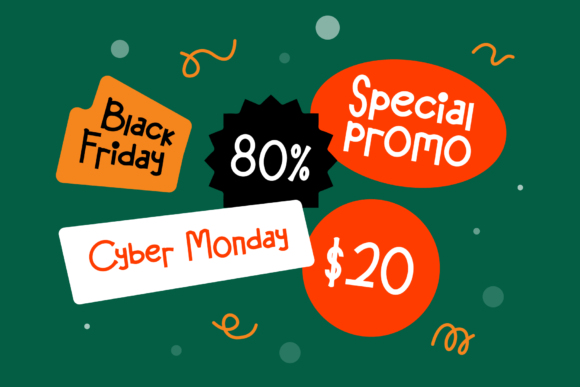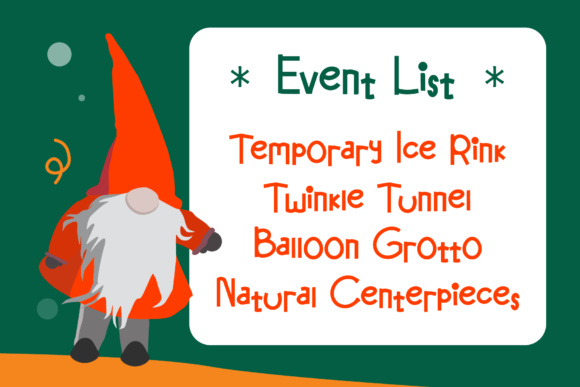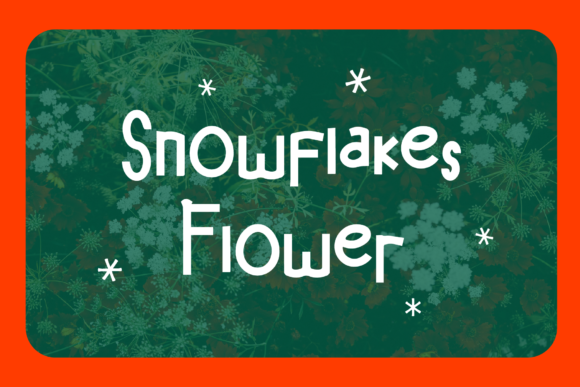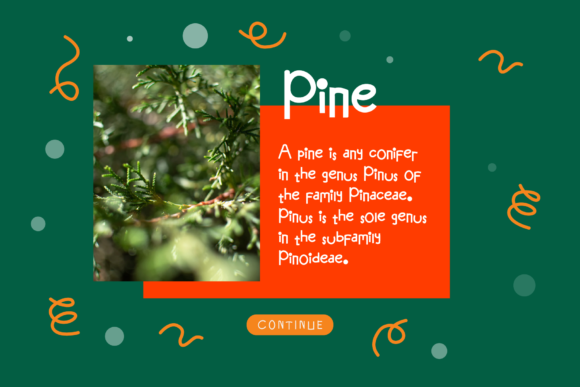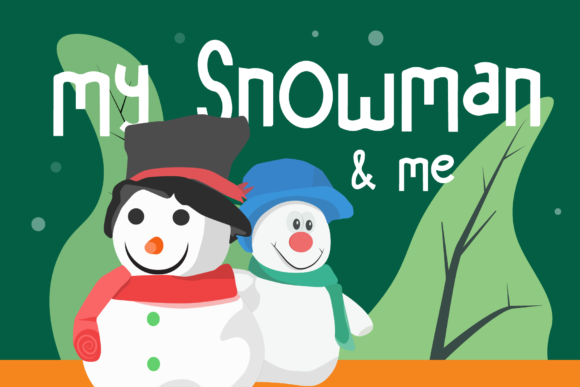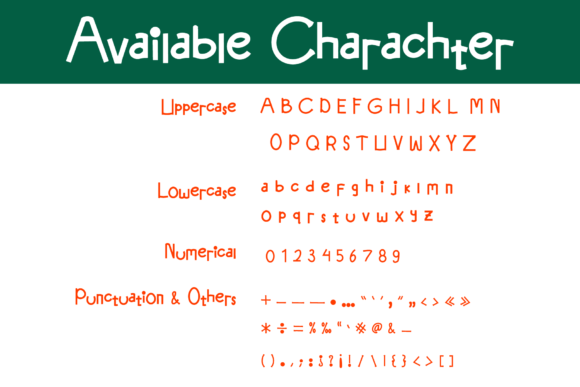
Introduction to City Series Font
City Series is a cool and quirky display font.
Whimsical and a bit quirky, this font will brighten up each of your designs Add it confidently to your projects, and you will love the results.